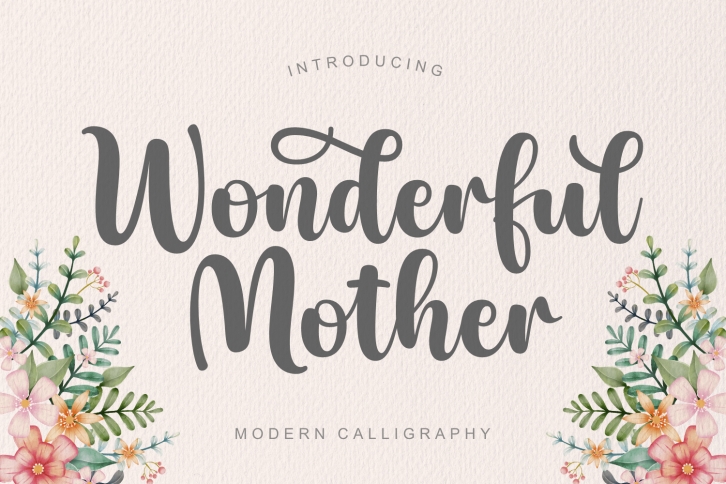
Wonderful Mother is a stylish and flexible script font. Its lovely rhythm and captivating characters make it suitable for a wide range of design projects. Whether you use it on a greeting card or a t-shirt design, this typeface has all it takes to lure you in!